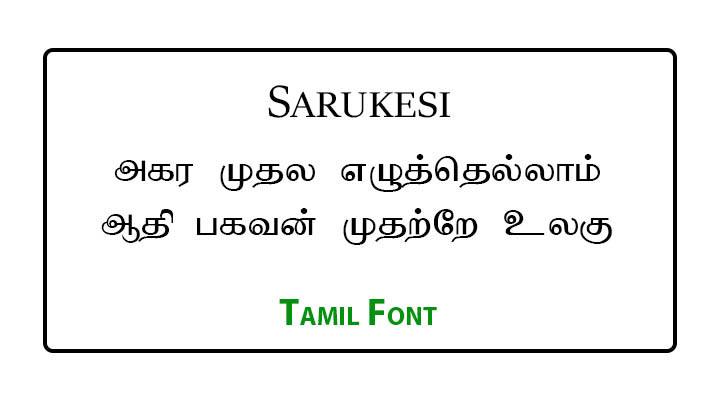
Sarukesi Tamil Font Free Download. Sarukeshi is one of the Tamil Regular Font. Specially used in publications. Here you can download Font and Keyboard Layout for Free. This font is widely used by Tamil Nadu and Sri Lankan Tamil Peoples. The following font was design and generated by by Fontograpgher 3.5.